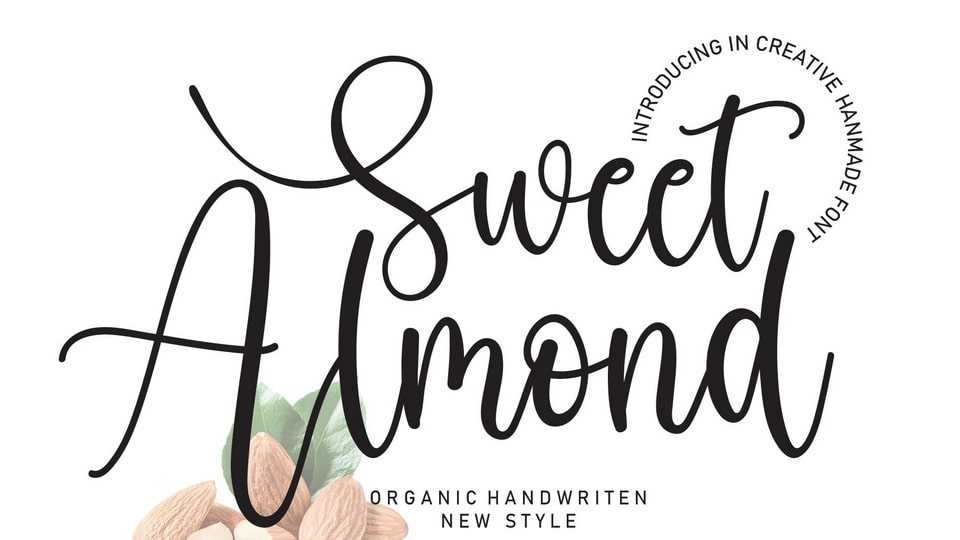
Download Sweet Almond font, a lovely and delicate handwritten script typeface. Modern and elegant, Sweet Almond font is made of beautiful creative strokes.